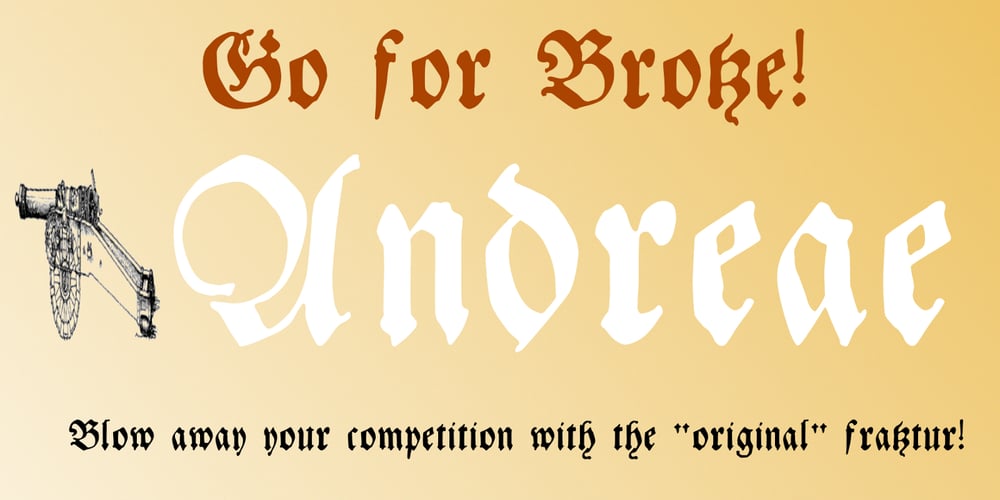
Andreae Font Family was designed by Shane Brandes and published by Proportional Lime. Andreae contains 1 styles and family package options. Hieronymus Andreae or latter in life Hieronymus Formenschneider as he proudly took a new surname to proclaim his success in the printing industry as the man who introduced the Fraktur script to the world of print. This project was undertaken at the orders of Emperor Maximilian I. One of Fraktur’s first appearances was in a joint venture with the great Albrecht Dürer. This font was based on a later work, Andreae’s magnus opus in the music field, the Coralis Constantini by Henry Isaac. Andreae worked as woodblock cutter and then became a publisher in the city of Nuremberg until his death in 1565. We at PLTF are proud to revive this enormously influential typeface.